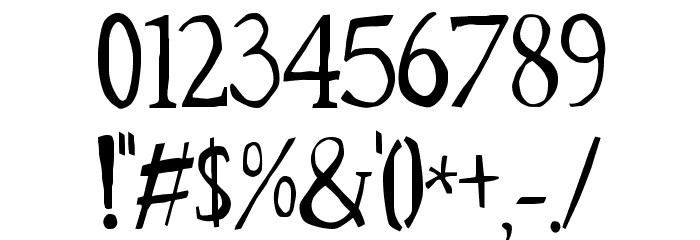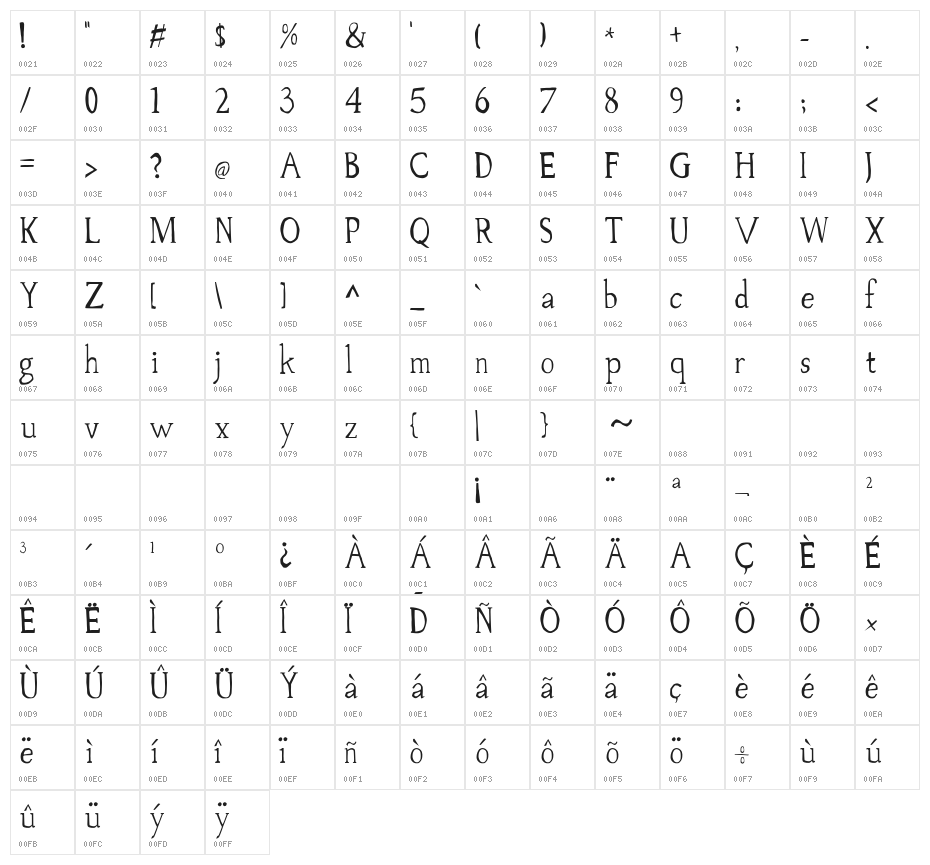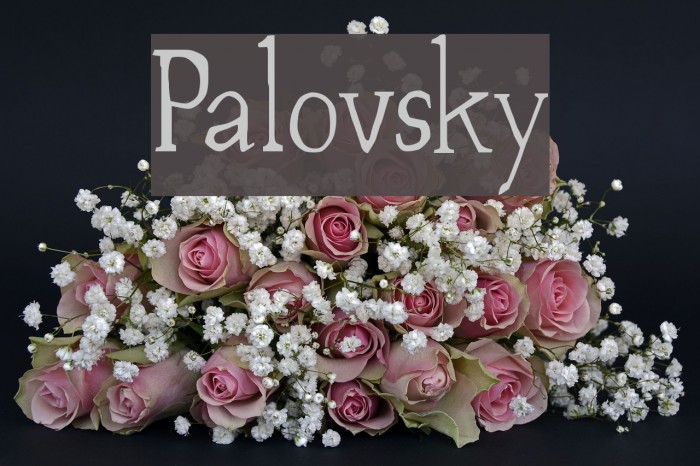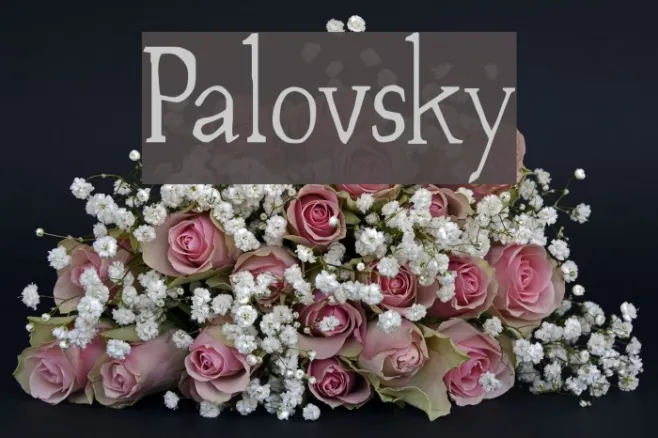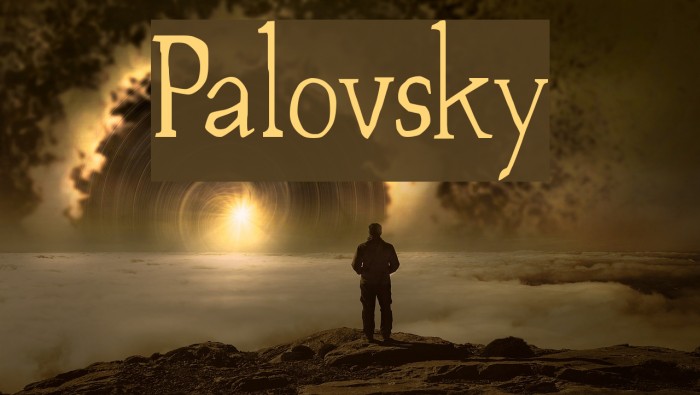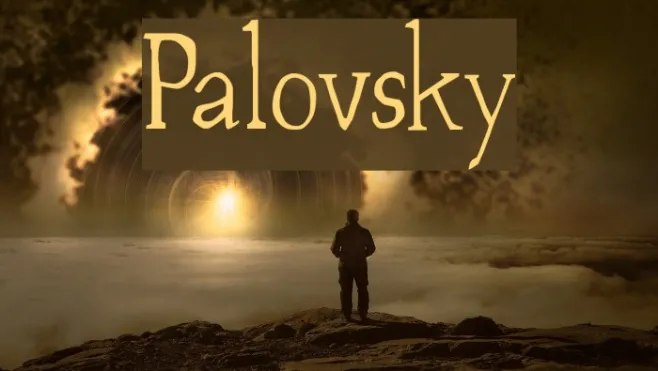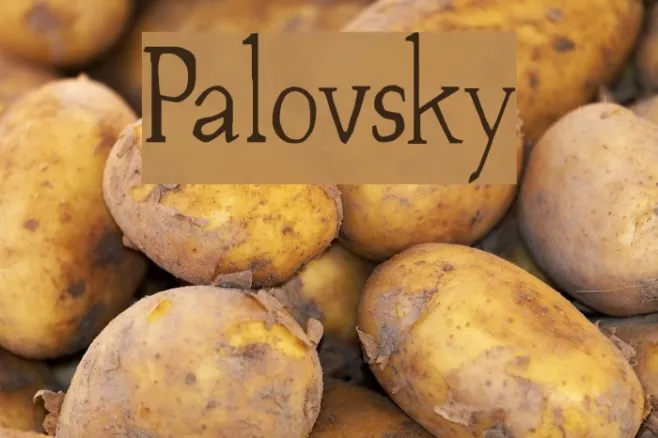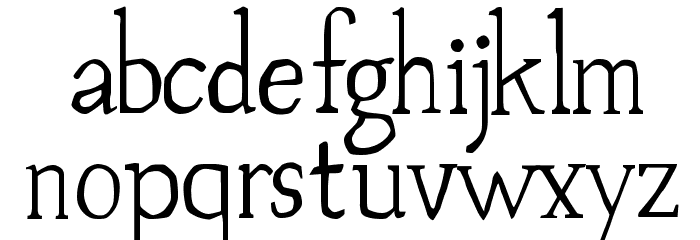
Palovsky Font
Palovsky Description
This font exhibits a classic serif style with a touch of elegance and sophistication. The uppercase letters are tall and slightly narrow, with distinct serifs that add a traditional feel. The lowercase letters maintain a consistent style, with smooth curves and a balanced weight. Numbers are clear and legible, featuring the same serif details that ensure readability. Special characters are well-integrated, providing a cohesive look across all glyphs. The overall design is versatile, suitable for both formal and creative applications.
| Proposed Projects | Ideal for book covers, editorial design, formal invitations, and branding projects that require a touch of sophistication. |